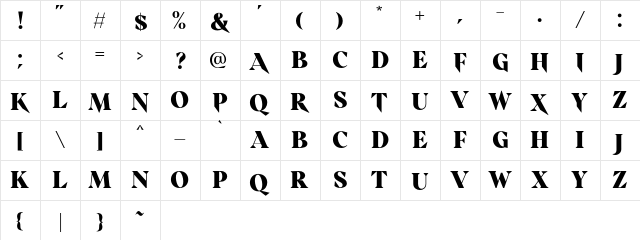
Scary Things DEMO Regular
Design Context for Scary Things DEMO Typeface
Scary Things DEMO leans into the macabre with letterforms designed to disturb and intrigue in equal measure.
Perfect for anything that needs to unsettle — game titles, horror branding, and macabre invitations.
Font Pairing: Pair with a clean neutral sans-serif for body copy to let Scary Things DEMO's character lead without overwhelming the composition.
Pro Tip: Use Scary Things DEMO at larger display sizes for maximum impact. Consider generous tracking to let the disturbing character of each letterform breathe.